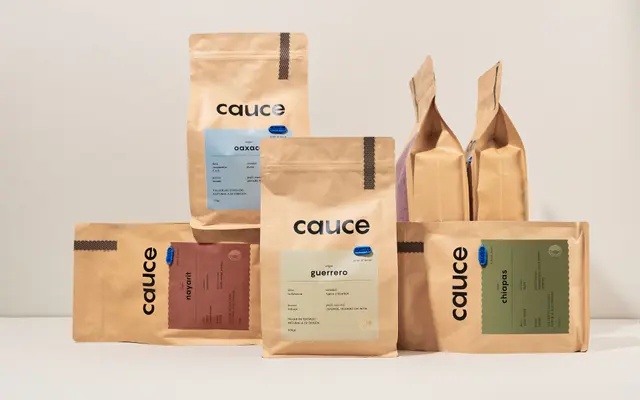
Pangram Sans
Pangram Foundry · Mat Desjardins, Valerio Monopoli
A large geometric sans collection spanning six width variants and a variable slant axis, with full Cyrillic support across 144 styles.
Pangram Sans is a geometric sans built around consistency and range, offering six sub-families from Compressed to Normal, each with 24 styles and a variable cut. The variable font includes a continuous slant axis running from reclined to italic, giving designers fine control over angle without switching between separate files. Each sub-family includes Cyrillic support, making the collection serviceable across Latin and Cyrillic-script markets.
Described explicitly as a geometric sans, with circular forms and consistent stroke widths characteristic of the geometric grotesque tradition. The variable slant axis and wide range of widths place it firmly in the geometric sans-serif category.